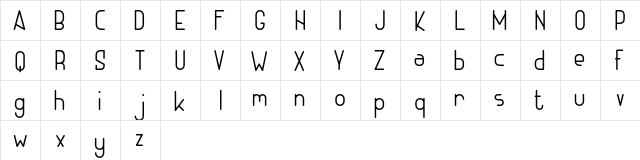
ADHE Sans Light FREE Regular
| Foundry | inspiratype |
| Designer | inspiratype |
Design Context for ADHE Sans Light FREE Typeface
ADHE Sans Light FREE offers clean, dependable letterforms without strong stylistic allegiance, making it a practical choice for designers who need flexibility. Its slender proportions lend an understated elegance to any composition.